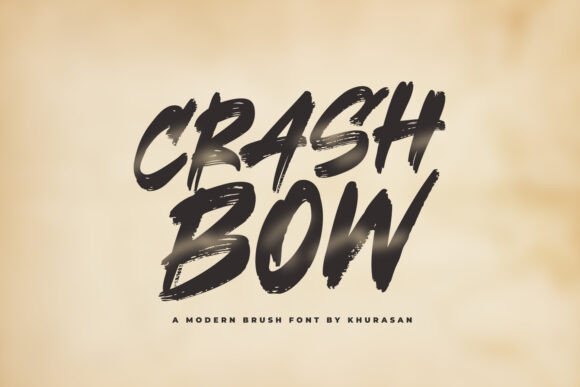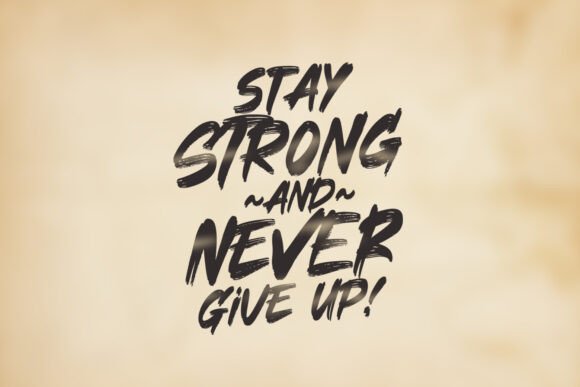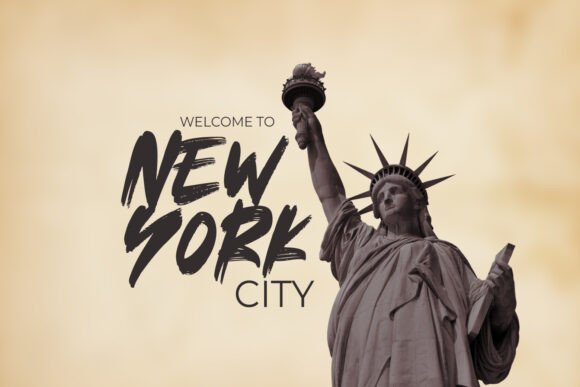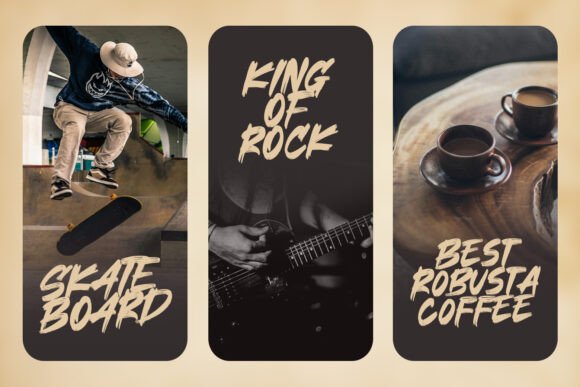
Crashbow Font: A Bold Brush Script for Eye-Catching Posters
About the Crashbow Font
The Crashbow Font offers a perfect balance of form and function for your design needs. Crashbow is a modern brush font perfect for posters, logos, magazines, book covers, banners, and many more! Get this quirky display font, and use it to create lovely designs! It can easily be matched to an incredibly large set of projects, so add it to your creative ideas and notice how it makes them stand out!
Crashbow’s bold, slightly rebellious character makes it ideal for headlines, branding projects needing a strong visual impact, and eye-catching posters. Its expressive brush strokes are less suitable for body text or UI elements where high readability is paramount; the informality might hinder usability in those contexts.
Consider pairing Crashbow with a clean sans-serif like Montserrat for a modern contrast, or a classic serif such as Garamond for a sophisticated juxtaposition. A geometric sans-serif like Futura could also provide a strong counterpoint to its organic brush strokes.
The font’s overall energy is best suited to brands projecting a creative, energetic, or slightly edgy image – think artisanal coffee shops, independent music labels, or streetwear brands. Avoid using it where a more formal or traditional aesthetic is required.